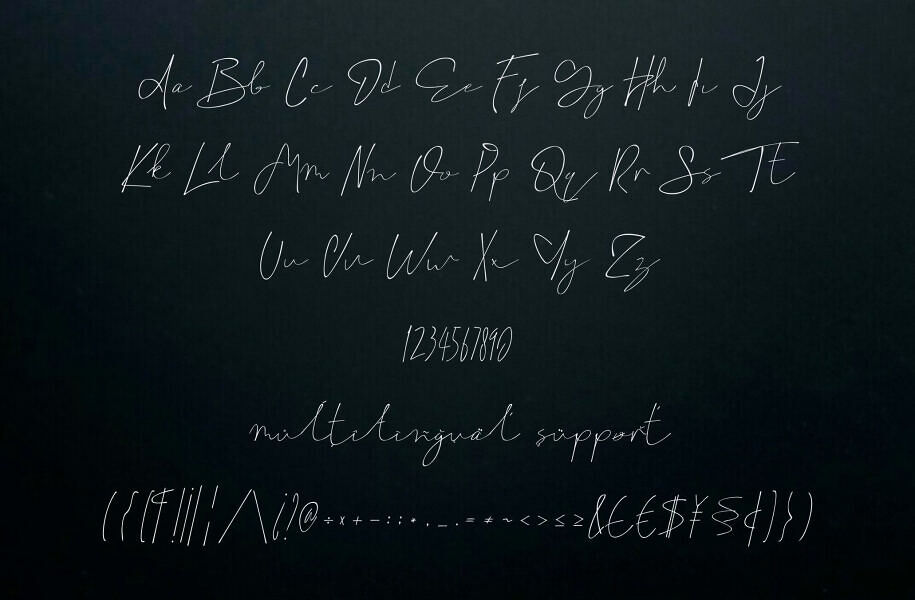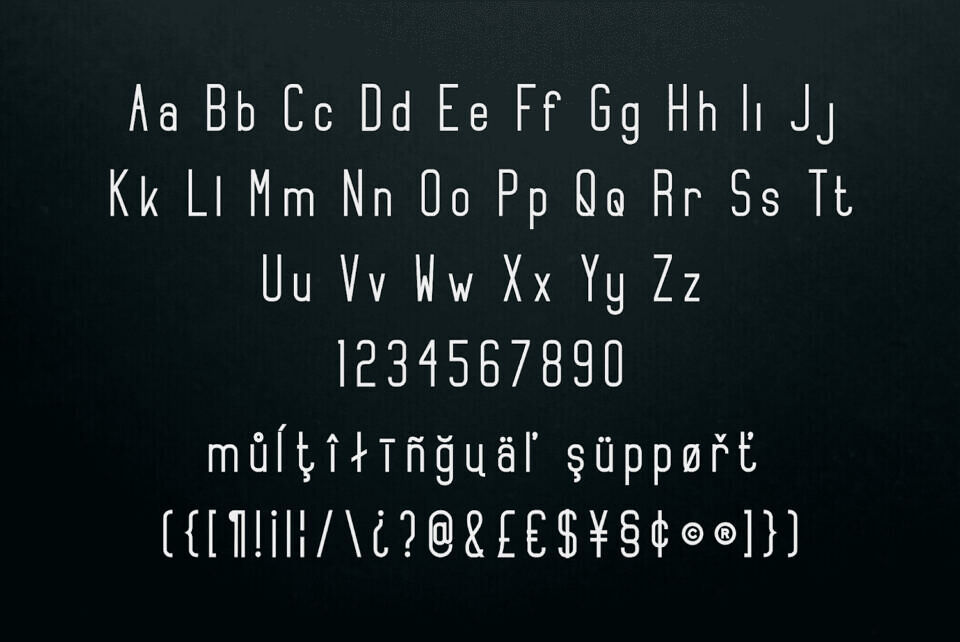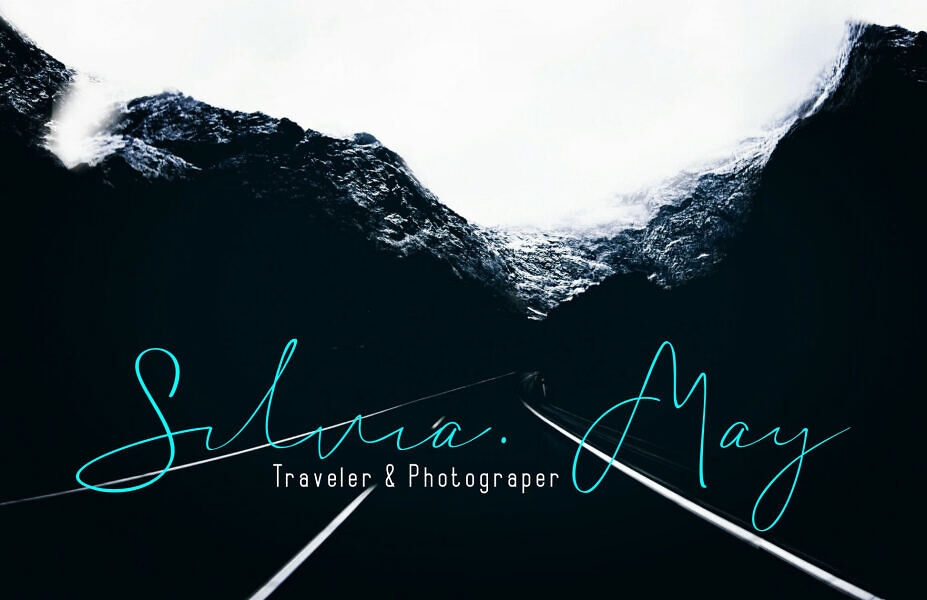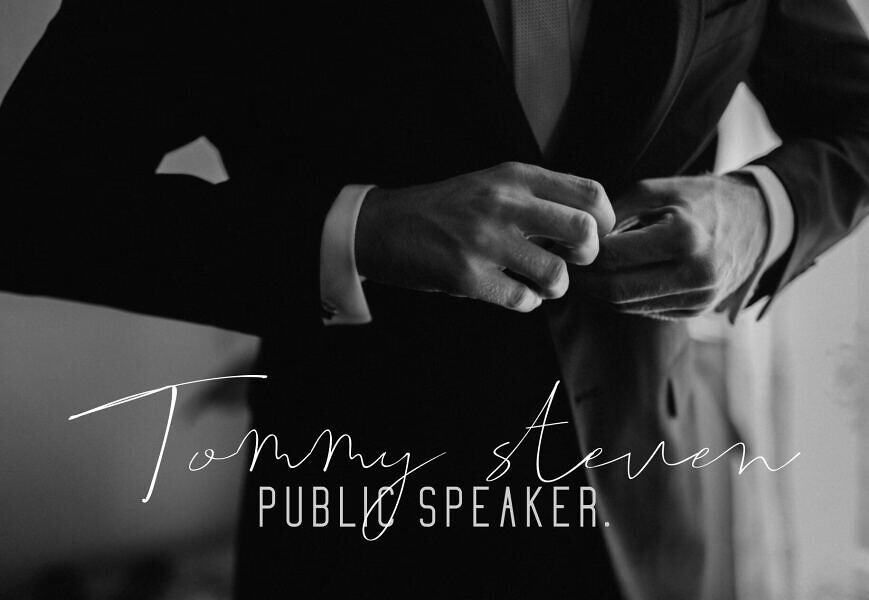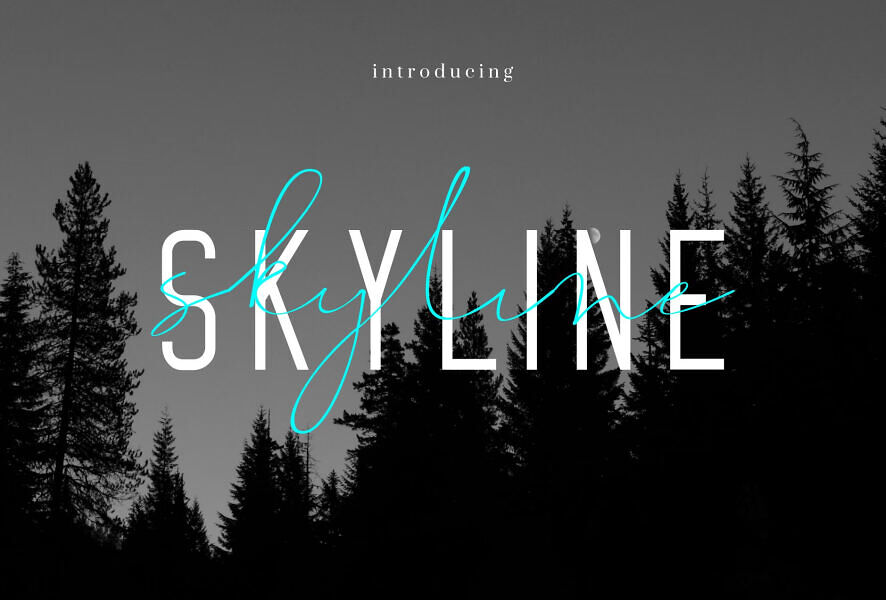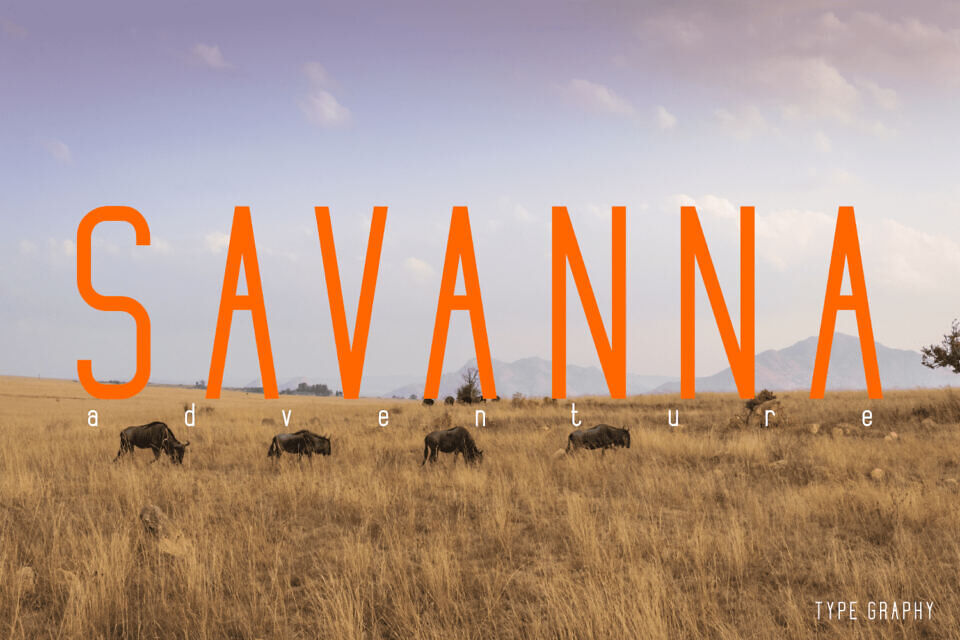
Skyline Font Family
The Skyline font family, created by Typegraphy Studio, offers a versatile and modern aesthetic. This collection features a blend of clean, tall, and spacious sans-serif styles alongside a distinctive script option.
With its urban and sophisticated feel, the Skyline family is well-suited for professional branding, photography, and headlines. It is an excellent choice for creative projects that require a sleek, contemporary, and minimalist touch.